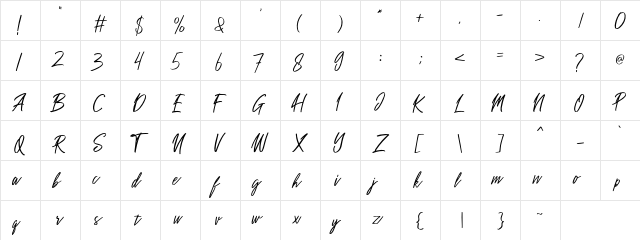
Sakoda Regular
Design Context for Sakoda Typeface
Sakoda is a composed and adaptable typeface that performs quietly and consistently across a wide range of design contexts.